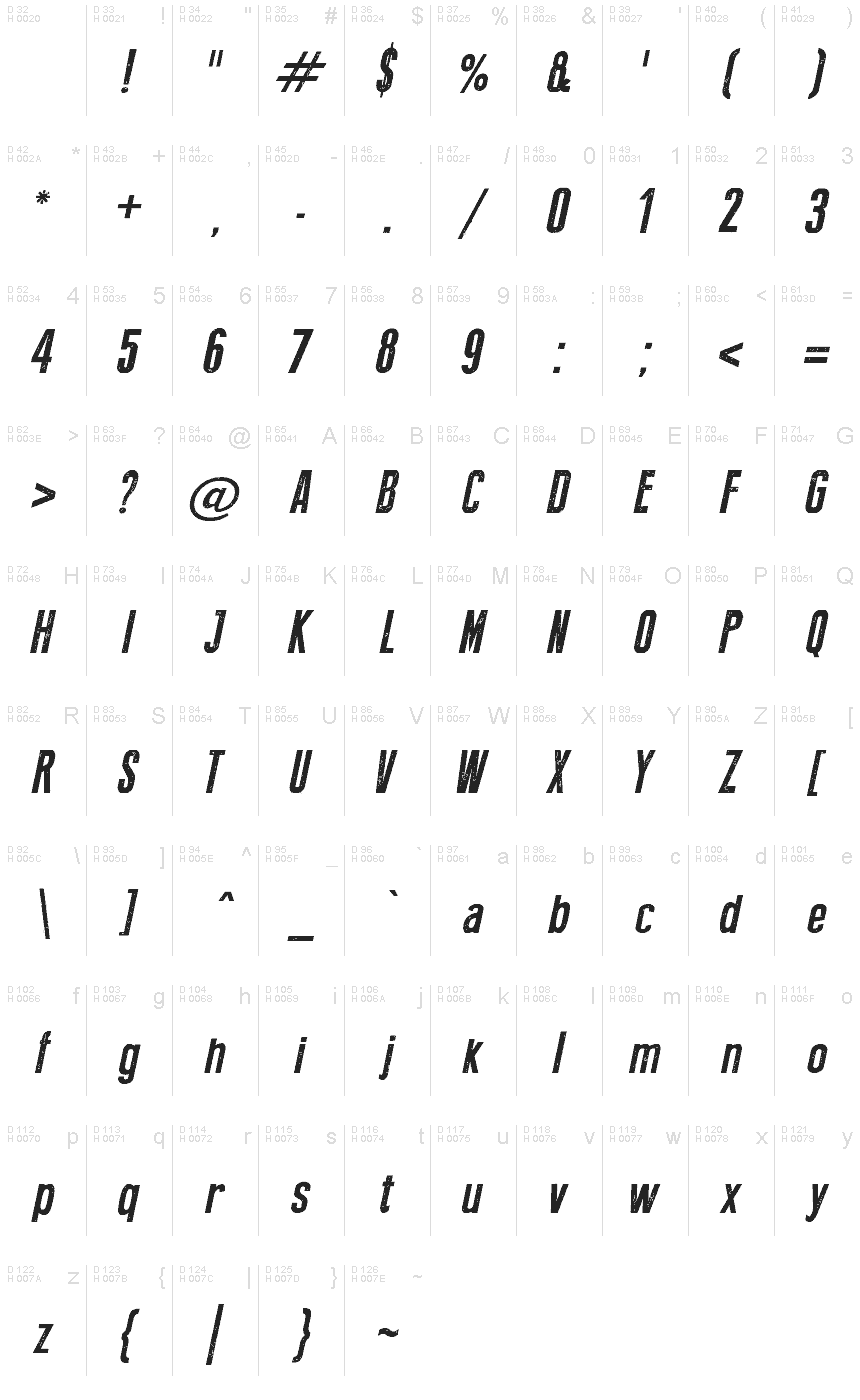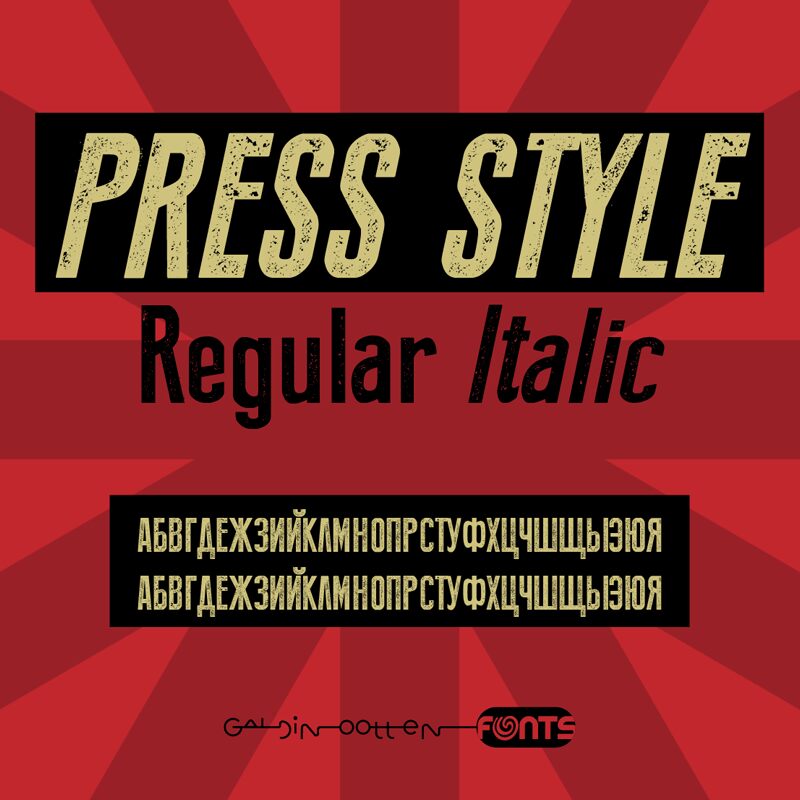
Press Style Italic
Press Style Italic font by Galdino Otten Fonts is a free condensed display font that captures a vintage-inspired retro aesthetic. Its unique eroded, gritty appearance and distressed texture create an industrial feel that evokes nostalgia. The typeface features a slight inclination for the letters which relaxes the final designs even further with little to no effort.
Use this versatile font for logotypes, branding designs, posters, printouts, advertisements, apparel items; T-shirts; headwear or pants. Don’t shy away from using it in book covers or even on bottle labels as well as other packaging projects.